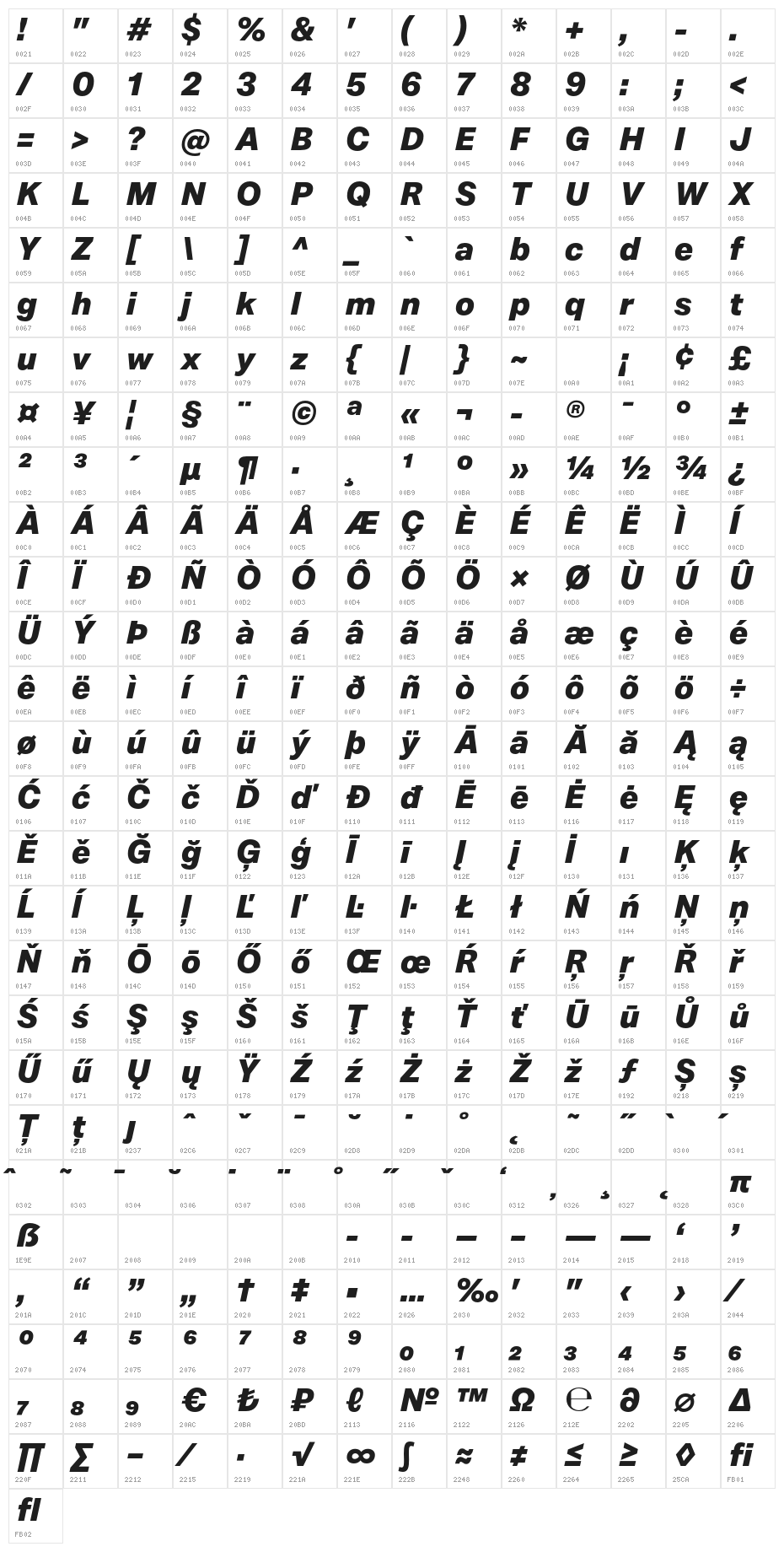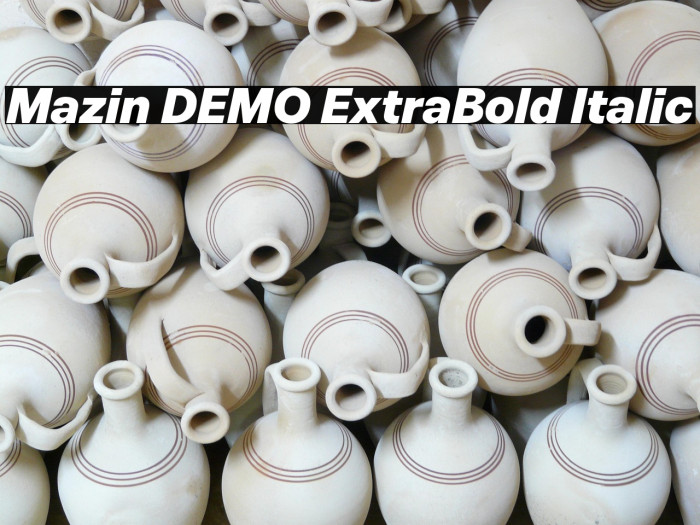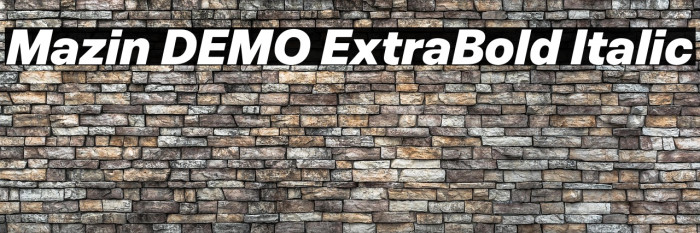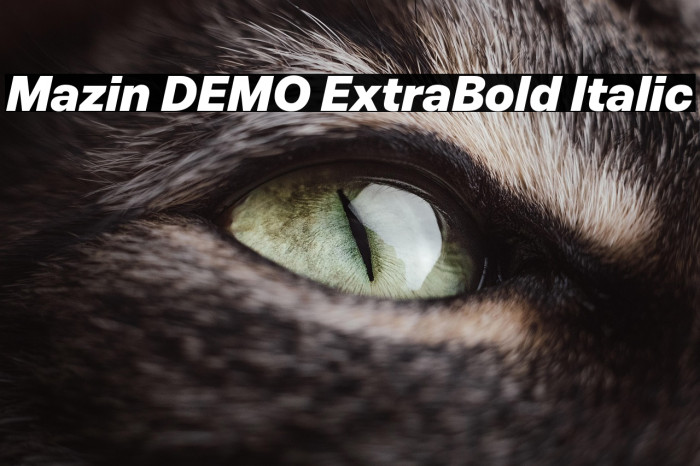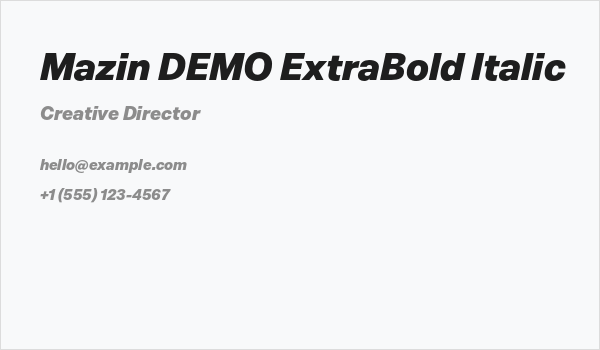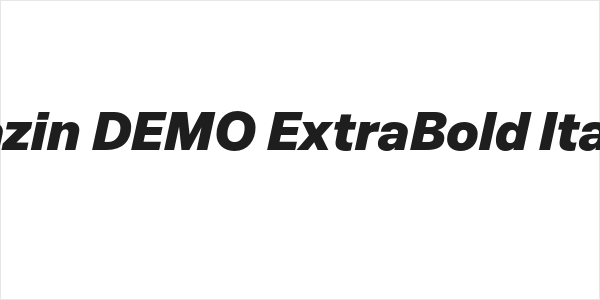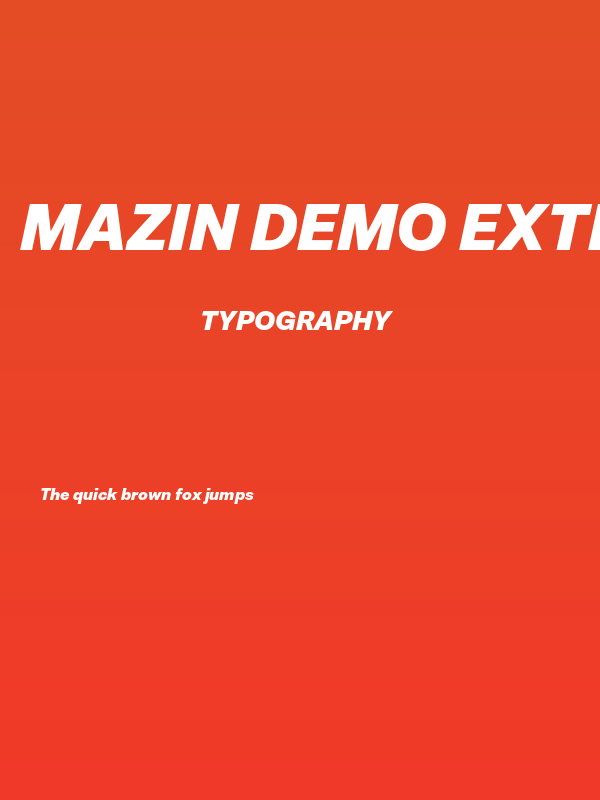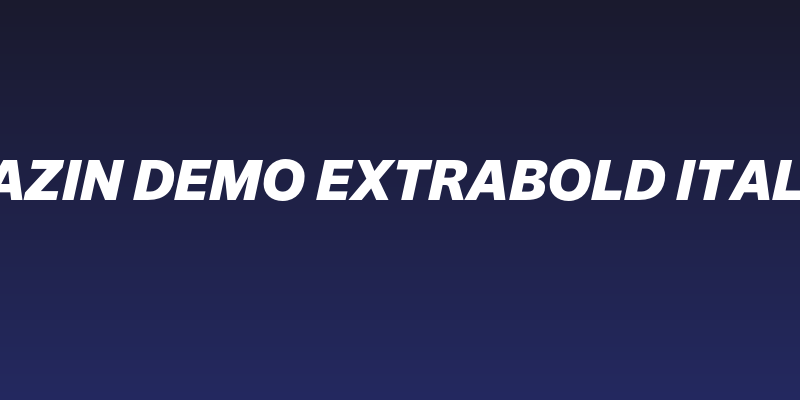
Mazin DEMO ExtraBold Italic Font
Mazin DEMO ExtraBold Italic Description
This font exhibits a bold and dynamic presence with its extra-bold weight and italic style. The characters are designed with a strong emphasis on thickness, providing a robust and impactful look. The italic slant adds a sense of motion and energy, making it suitable for attention-grabbing headlines and titles. The uppercase and lowercase letters maintain a consistent style, ensuring readability while delivering a powerful visual statement. The numerals and special characters are equally bold, complementing the overall aesthetic. This font's design is modern and assertive, perfect for projects that require a strong visual impact.
| Proposed Projects | Ideal for headlines, advertising, branding, and any project needing a strong visual impact. |